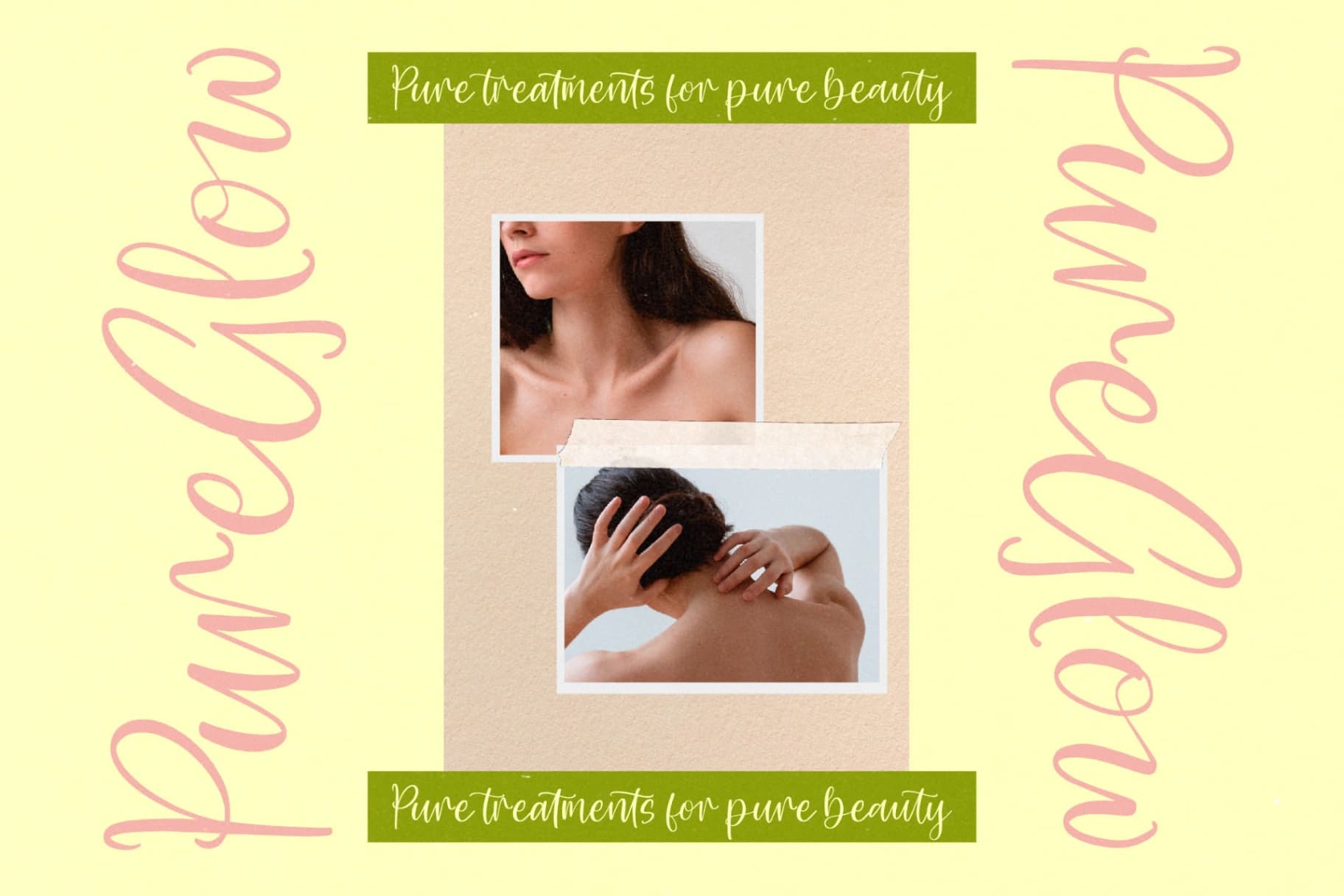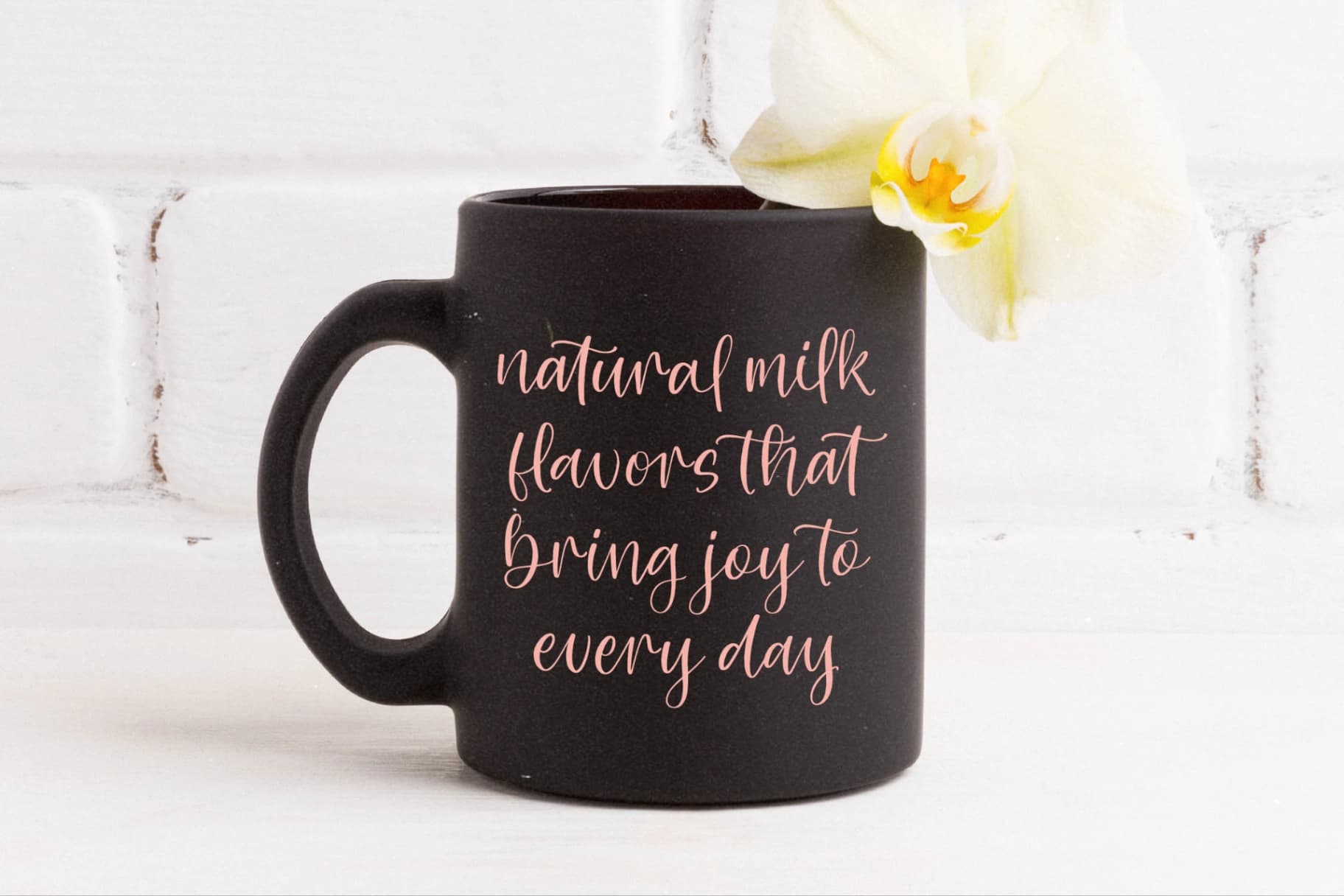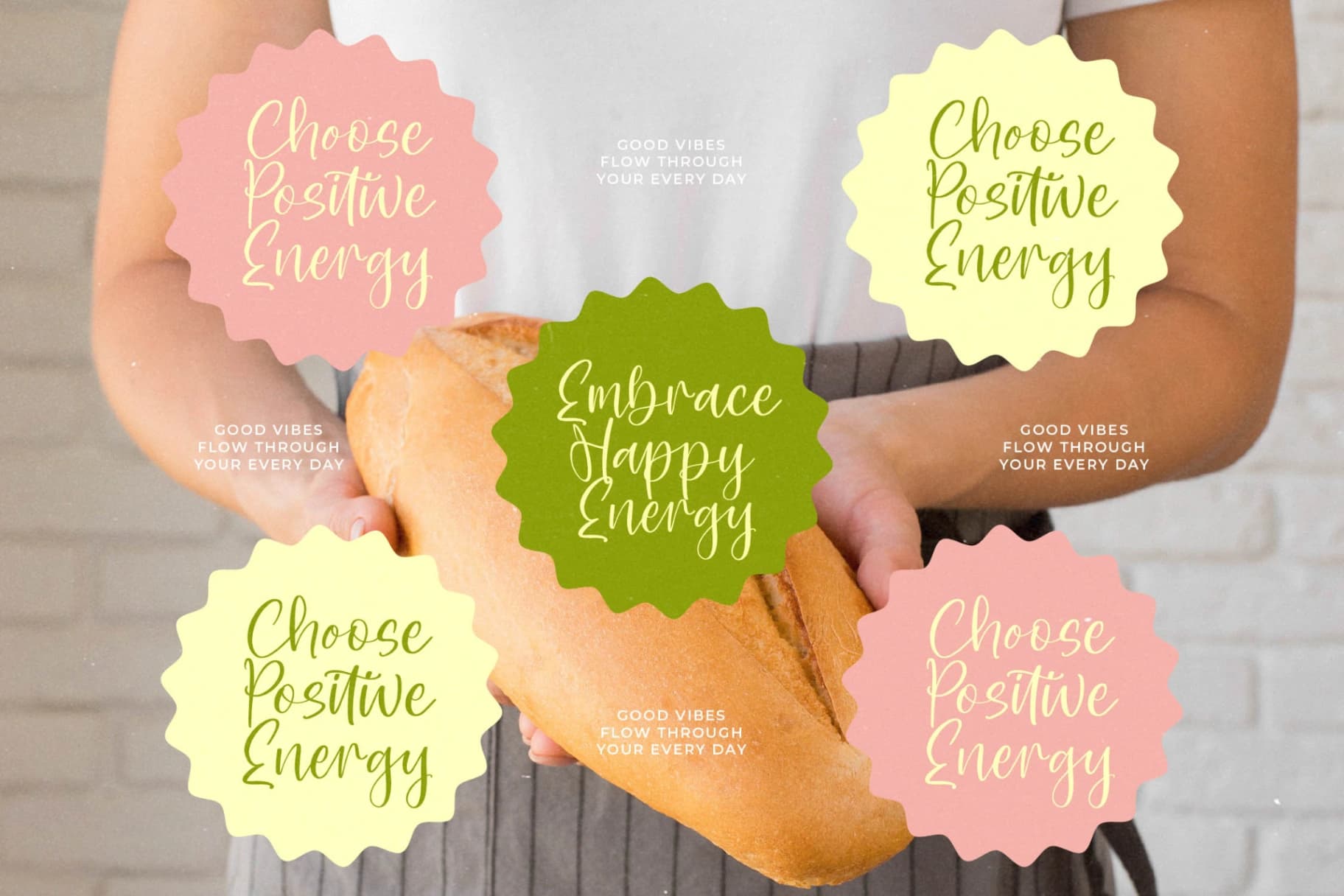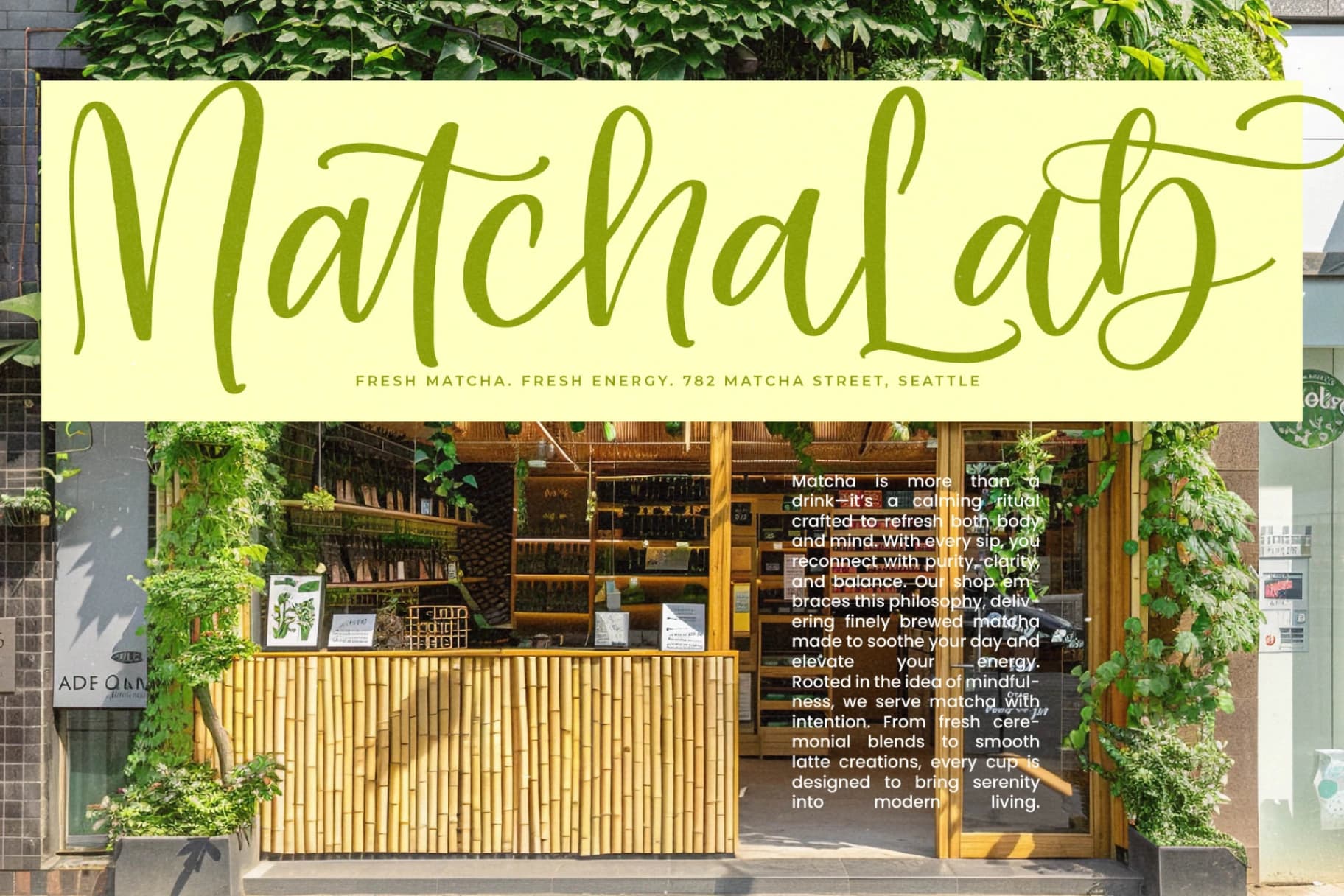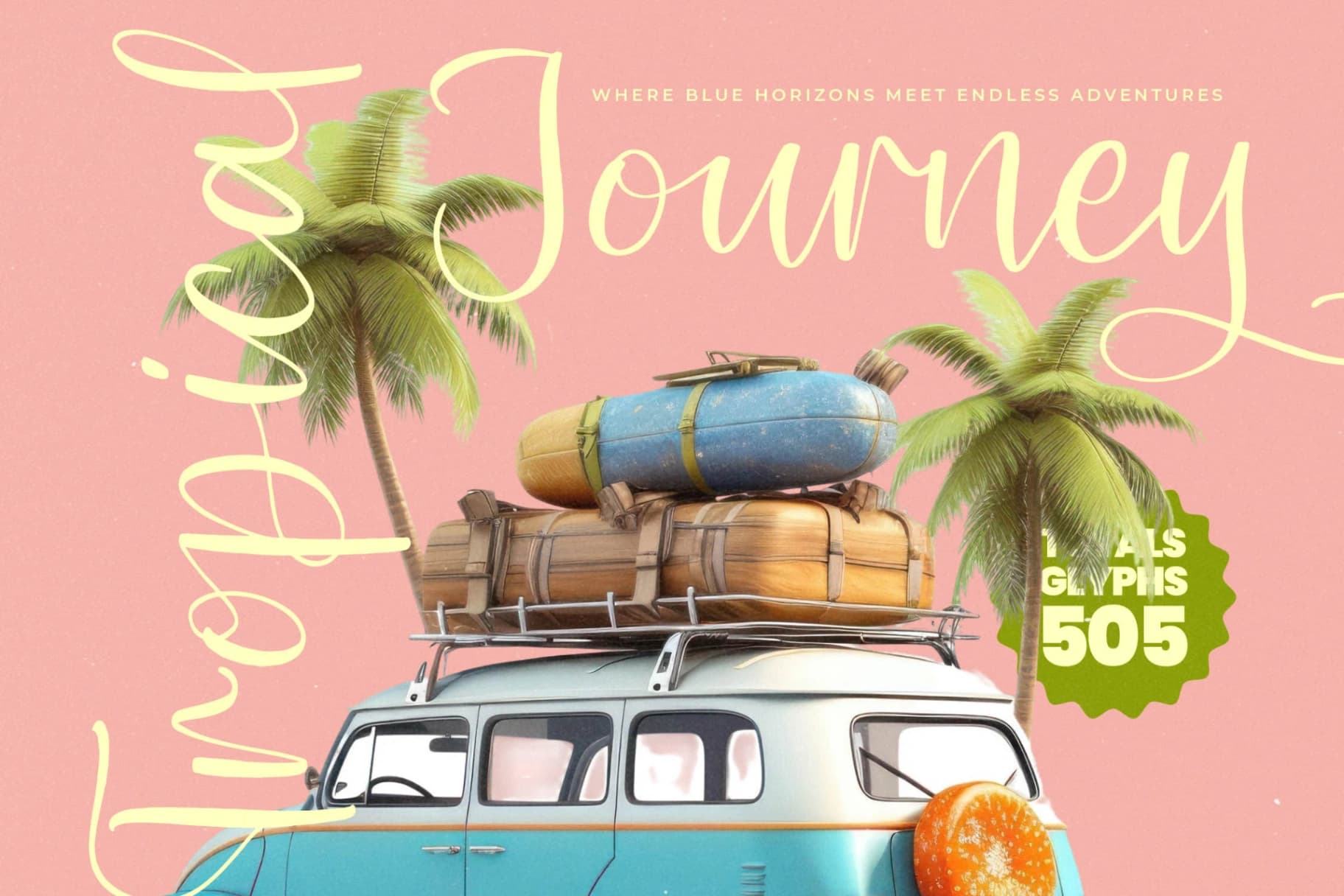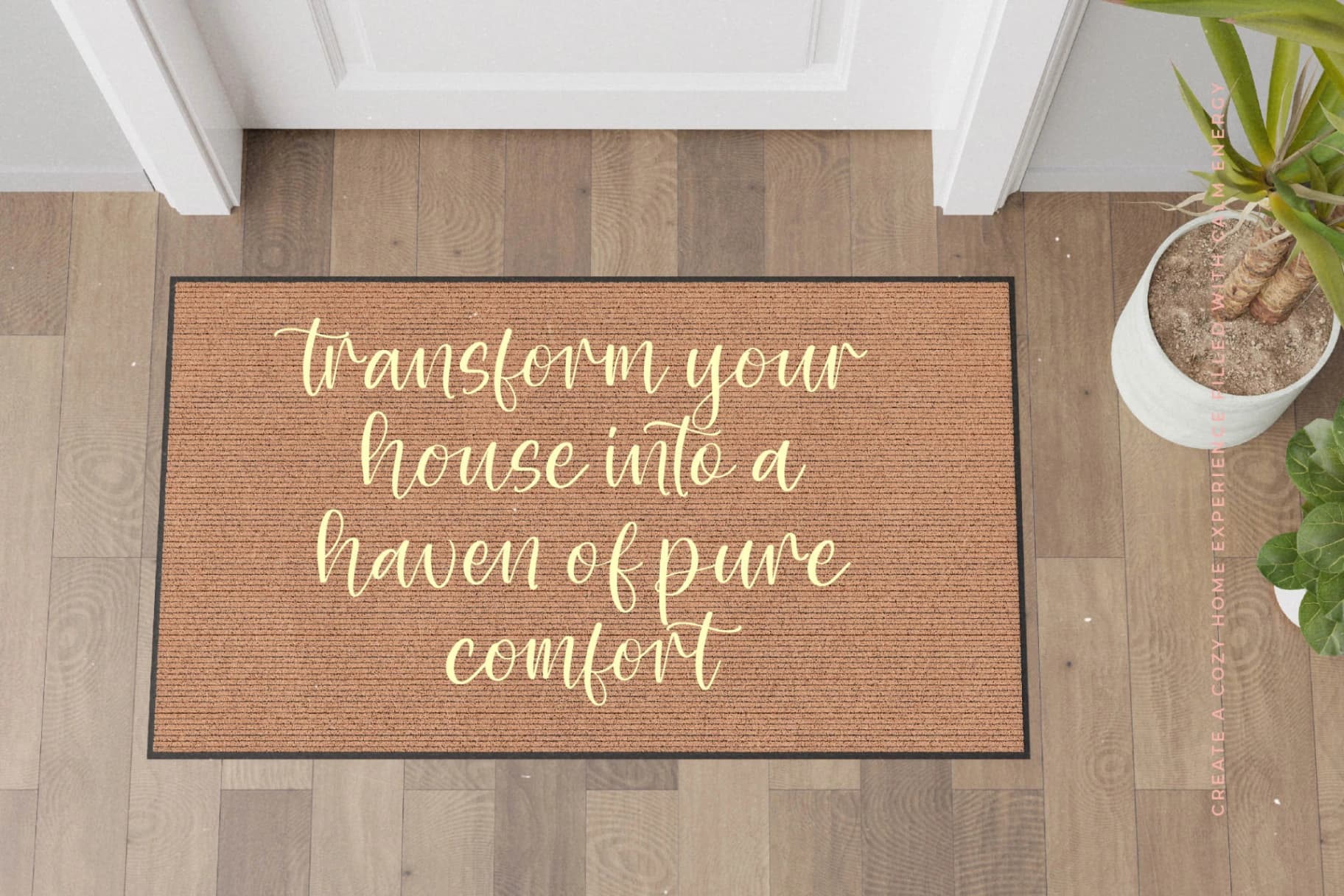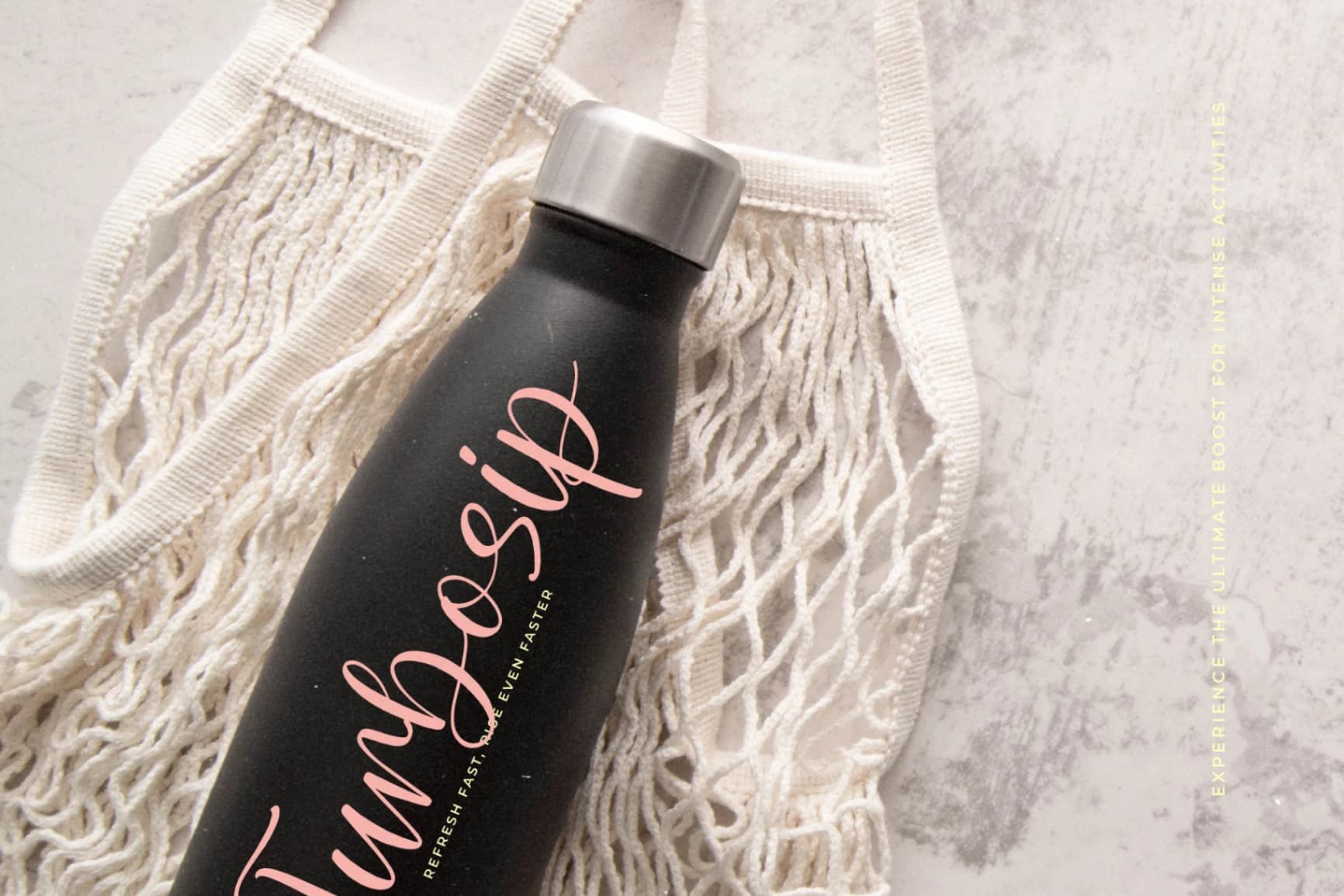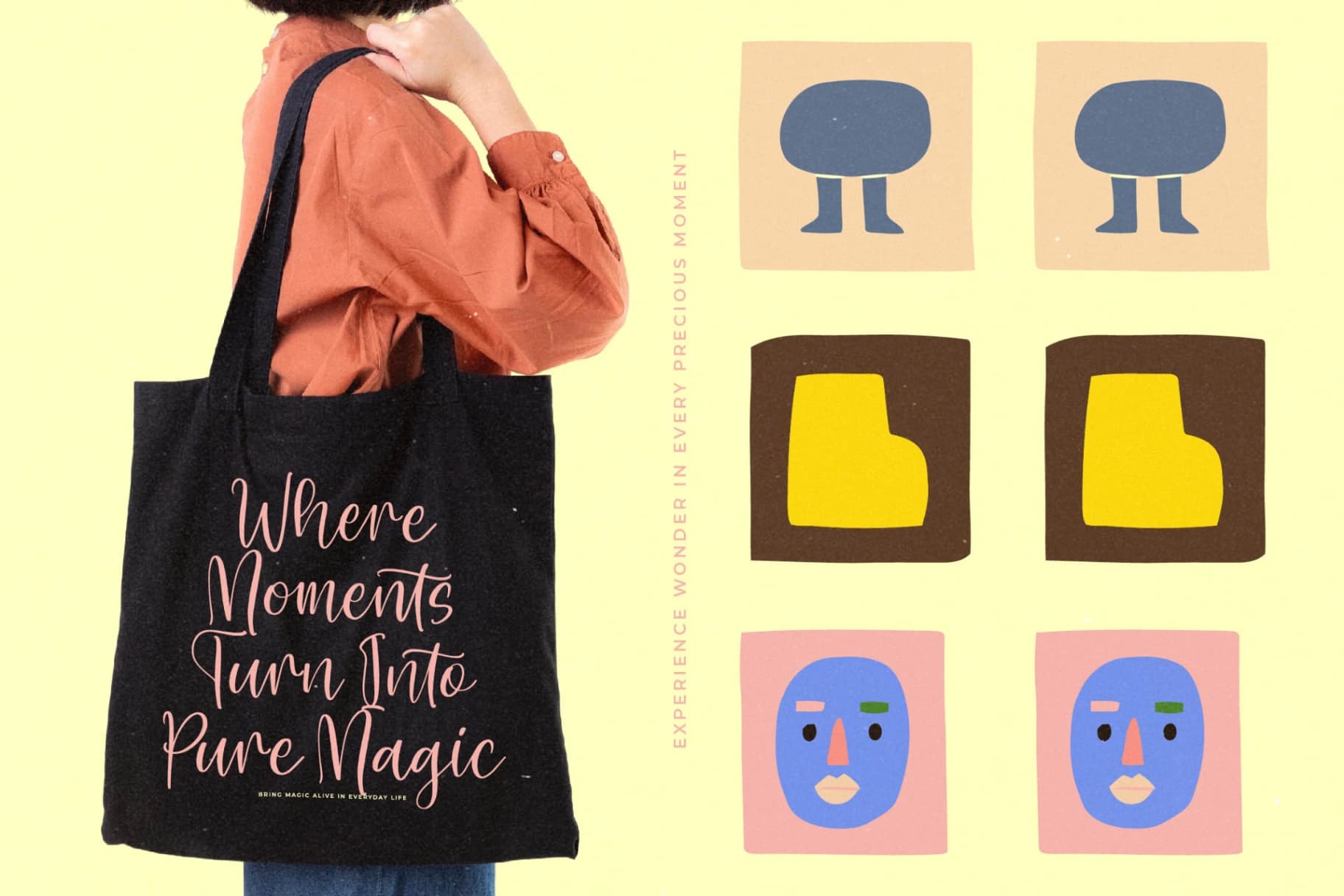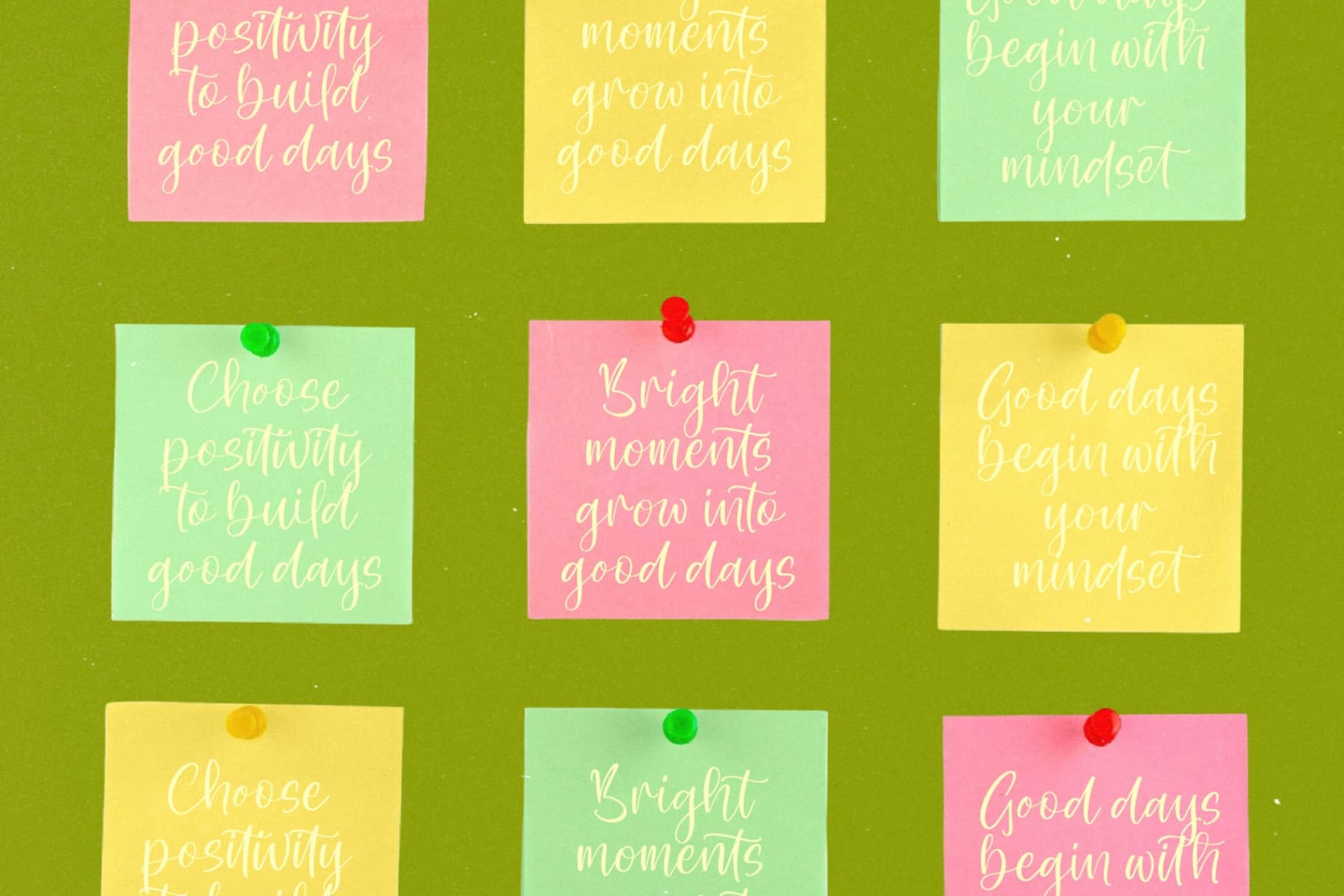
Shelter Natural - Natural Handwritten Font
Unlock the power of genuine connection with the organic elegance of Shelter Natural - Natural Handwritten Font. This signature script captures the beauty of effortless handwriting, delivering a warm and intimate voice to any design project. Its flow is meticulously balanced, featuring generous curves and an authentic, smooth baseline that avoids the stiffness often found in digital calligraphy. It is the definitive choice for creatives seeking a hand-drawn aesthetic without compromising readability or professional finish.
Maximize your creative control through an expansive feature set engineered for sophisticated typography. Shelter Natural - Natural Handwritten Font boasts over 500 total glyphs, including 147 stylistic ligatures and numerous alternates, ensuring every composition feels truly unique and natural. This rich typographic toolkit allows for seamless customization, creating a truly custom appearance that mimics natural handwriting variation. The resulting text is fluid, dynamic, and exceptionally appealing, making it a powerful statement font for engaging audiences.
Expand your brand's reach globally without limitations. With its extensive multilingual support, Shelter Natural - Natural Handwritten Font adapts seamlessly across global markets, making it incredibly versatile for international projects. This comprehensive language coverage guarantees that the emotional impact and professional quality of the handwritten aesthetic translate perfectly across diverse European and international scripts, reinforcing its position as a truly global design asset.
Define your visual identity with charm and premium quality. Shelter Natural - Natural Handwritten Font is perfectly suited for luxury branding, wedding stationery, artisanal product packaging, magazine headlines, and high-impact social media graphics. It excels in contexts where a blend of approachability and sophistication is crucial. Adopt this natural script font today to infuse your next campaign with warmth, authenticity, and undeniable visual appeal, establishing a strong, memorable presence.